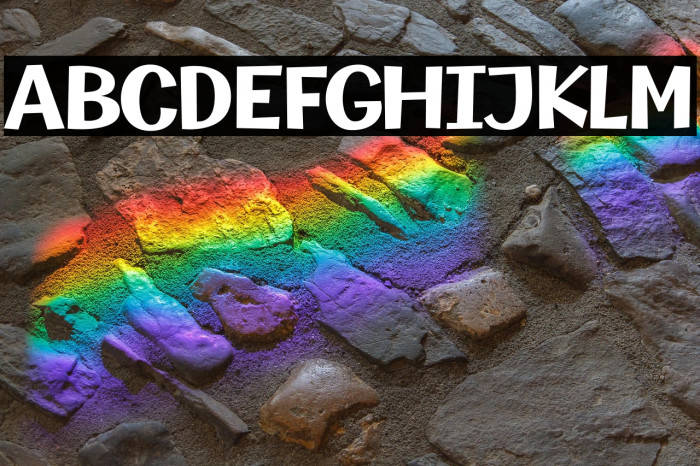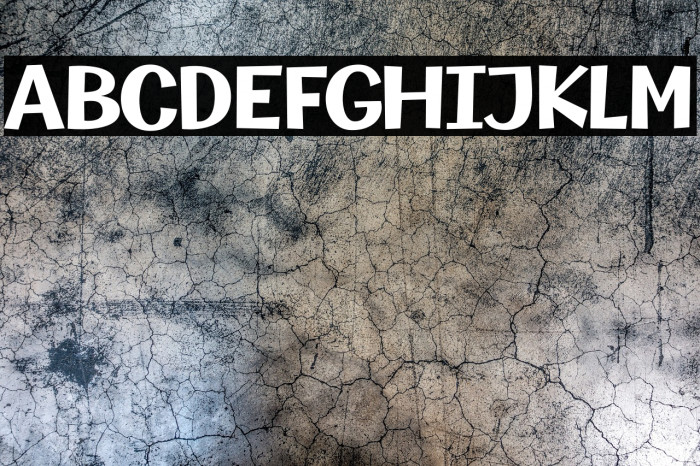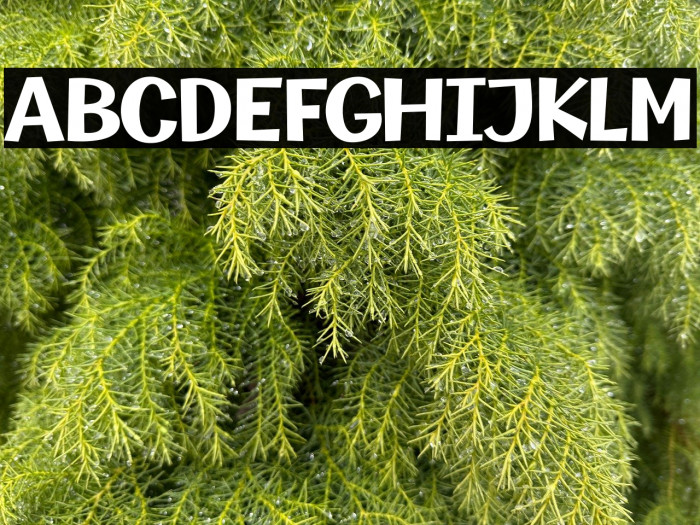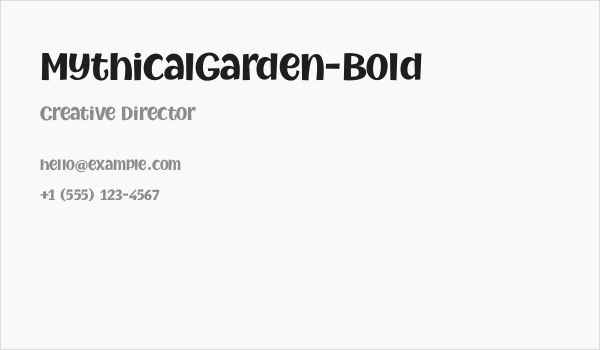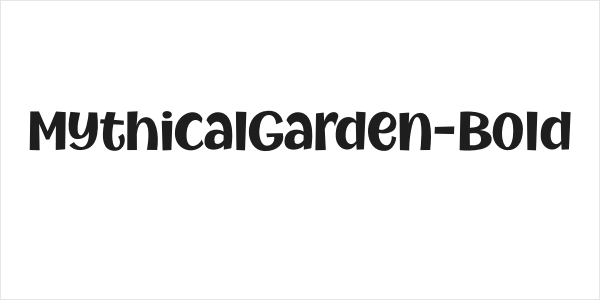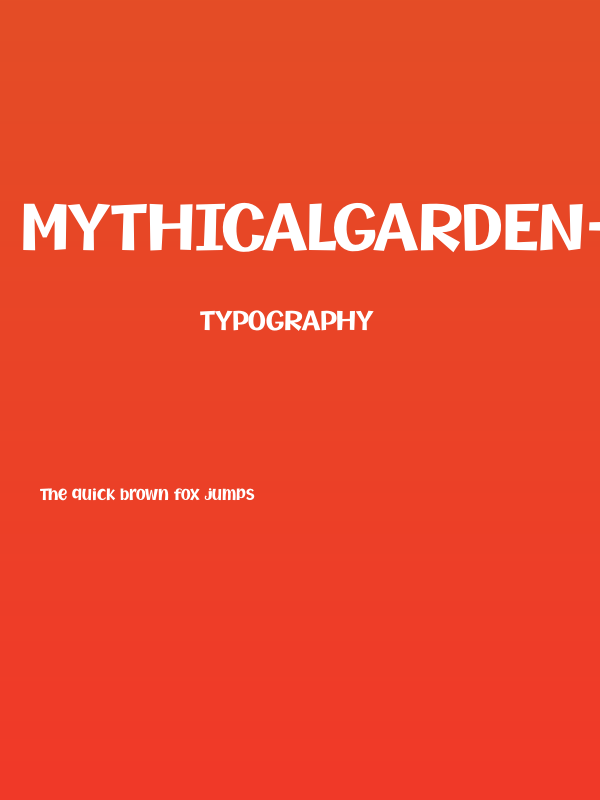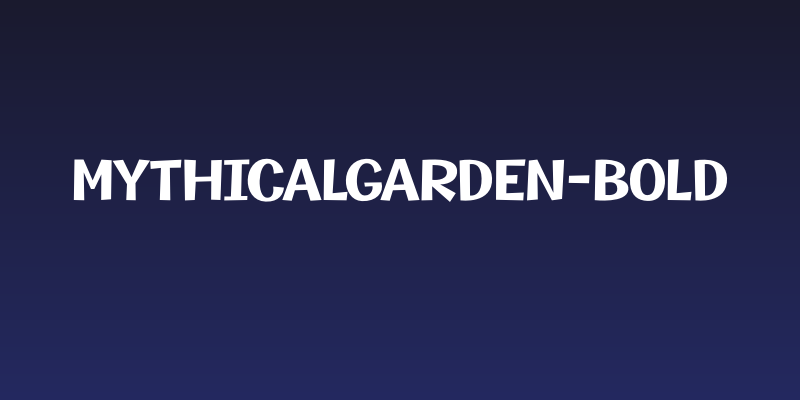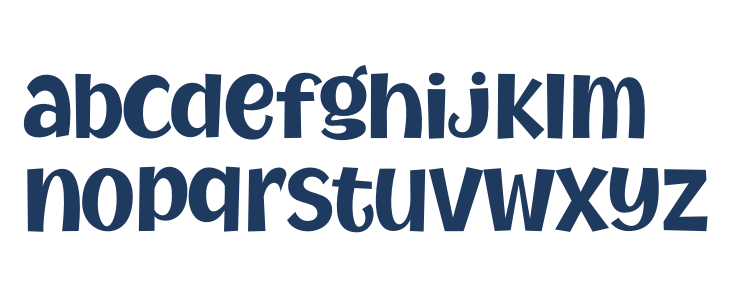
MythicalGarden-Bold Font
MythicalGarden-Bold Description
This font features a playful and whimsical design, characterized by its bold and slightly irregular letterforms. The uppercase letters are robust and dynamic, with a slight tilt that adds a sense of movement. The lowercase letters maintain a consistent style, with rounded edges and a friendly appearance. The numerals are bold and easily readable, complementing the overall playful aesthetic. Special characters are designed with the same whimsical flair, making them suitable for creative and informal contexts. The font's unique style makes it stand out, perfect for projects that require a touch of fun and creativity.
| Proposed Projects | Ideal for children's books, playful branding, greeting cards, and creative posters. |